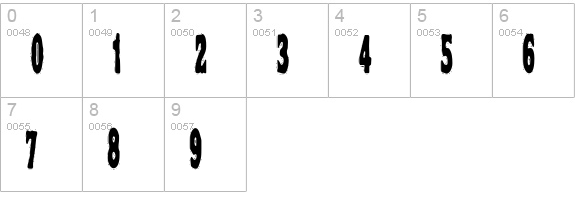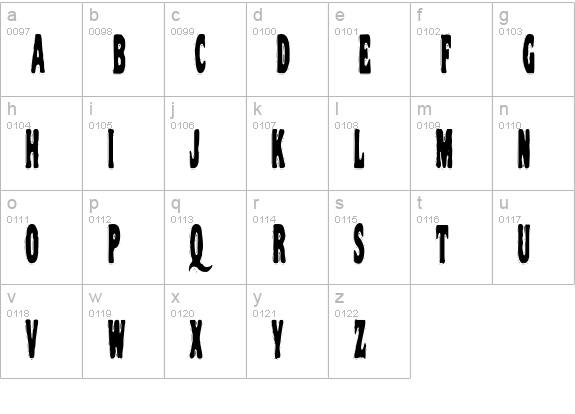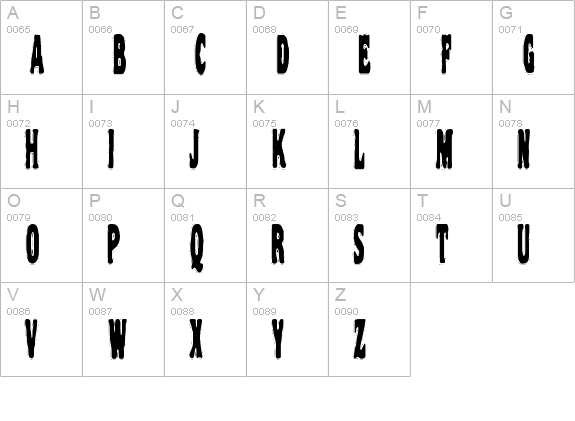
VTC NightOfTheStretchedDead Font Details
Introducing VTC NightOfTheStretchedDead font, a mesmerizing typographic creation that will send shivers down your spine. This hauntingly beautiful font embodies the essence of the night, with its elongated and distorted letterforms that evoke a sense of eerie enchantment. VTC NightOfTheStretchedDead font is perfect for adding a touch of macabre elegance to your design projects. Whether you're working on a Halloween party invitation, a horror movie poster, or a gothic-themed website, this font will set the mood with its unique and otherworldly appearance. Not only does VTC NightOfTheStretchedDead font make a striking impression, but it also offers the convenience of being freely available for download at FontsMarket.com. This means that you can add a touch of dark magic to your designs without breaking the bank. With its versatility and captivating design, VTC NightOfTheStretchedDead font is sure to become a favorite among graphic designers, typographers, and Halloween enthusiasts alike. So don't miss out on the opportunity to unleash the power of this free font and let your creativity run wild. Explore the dark and mysterious realms of typography with VTC NightOfTheStretchedDead font today.